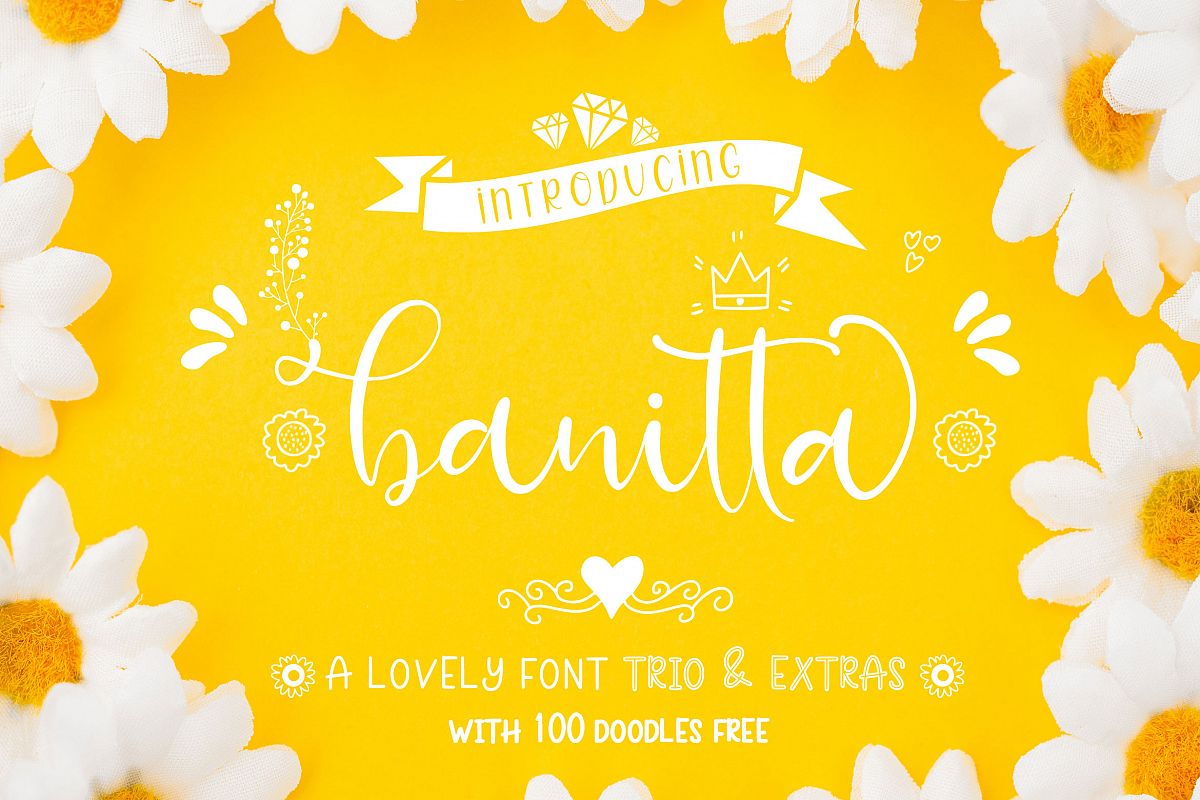
Banitta Font Trio & Extras
Banitta Font Trio & Extras includes full set of lovely uppercase and lowercase letters, multilingual symbols, numerals, punctuation. is perfect fo you up coming projects. such as modern invitation design, branding stationery design, wedding, birthday, qoute, craft, etc and any projects.